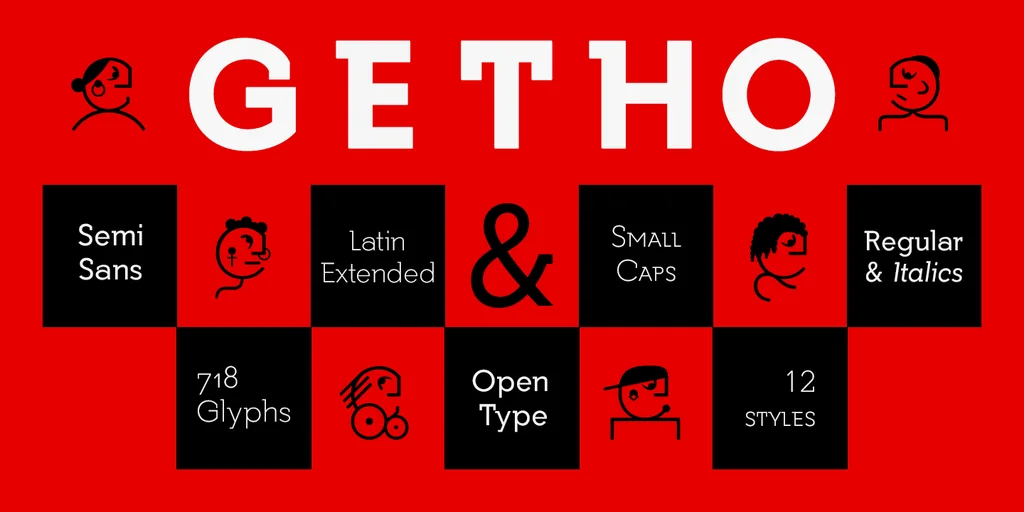
Getho Font Family
Getho Font is perfect for urban streetwear branding, hip-hop event posters, graffiti-inspired designs, youth culture marketing, music album covers, street art projects, skateboard graphics, bold fashion labels, contemporary social media content, and edgy advertising campaigns that require authentic street credibility and raw visual energy.
This font is exciting because it captures the rebellious spirit and authentic energy of street culture through bold, unapologetic letterforms that demand attention and respect. The distinctive character design embodies urban creativity and underground movements, making it ideal for projects that need to connect with youth audiences and communicate genuine street authenticity without compromise.
The Getho Font family typically includes uppercase and lowercase characters, numerals, punctuation marks, special symbols, and stylistic variations that enable designers to create powerful urban-inspired compositions with attitude and edge.
Whether you're designing for streetwear brands, creating bold music industry graphics, or developing marketing materials for youth-oriented businesses that value authenticity and cultural relevance, Getho Font Free Download provides the perfect typographic voice for urban expression. Its raw character and street-smart styling make every project feel more genuine and culturally connected, ensuring your designs resonate with audiences who appreciate real urban culture while communicating confidence, creativity, and the unfiltered energy of street movements worldwide.